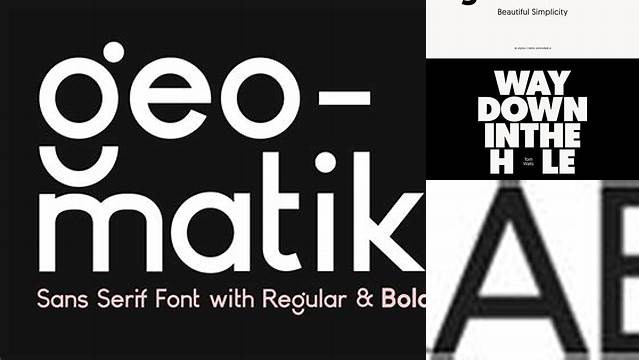
Hey everyone! Today, we're diving headfirst into the awesome world of typography, specifically focusing on the Geomatik Modern Sans Serif Font. This font is a real gem for anyone looking to add a touch of modern elegance to their designs. And the best part? You can snag a free download to start creating immediately! This guide will walk you through everything you need to know about Geomatik, from its characteristics to how you can use it to make your designs pop. So, let's get started, shall we?
H2: Understanding the Allure of Geomatik Sans Serif Font
Geomatik isn't just another font; it's a statement. It's clean, it's crisp, and it's incredibly versatile. This modern sans serif font is perfect for a wide range of design projects. Think of it as your secret weapon for creating visually appealing content. The beauty of Geomatik lies in its simplicity. Its clean lines and uncluttered design make it incredibly readable, which is essential whether you're designing a website, crafting a brochure, or creating social media graphics. The font's elegance also makes it a favorite among designers aiming for a professional, sophisticated look. The allure of Geomatik stems from its ability to blend modern aesthetics with timeless appeal. It's a font that can be used in various contexts, from corporate branding to personal projects, and it always looks fantastic. The characters are well-defined, ensuring that your message is clear and easy to understand. This is crucial when you want your audience to quickly grasp the information you're presenting. Geomatik's versatility also means it's easy to combine with other fonts. You can pair it with a serif font for a classic contrast or with another sans serif for a more contemporary feel. The possibilities are truly endless, and the results are often stunning. This font is more than just a typeface; it's a tool that allows you to express your creativity and enhance the visual impact of your work. The careful design of each character gives it a unique identity, and its understated elegance makes it stand out without being overly flashy. Geomatik is an excellent choice if you want to create a sleek, modern design that is both engaging and functional. This font is a reliable option whether you're a seasoned designer or just starting your design journey. This is your chance to make a lasting impression with its clean lines and balanced proportions.
H3: Exploring the Key Features and Characteristics of Geomatik
Let's get down to the nitty-gritty and explore what makes Geomatik so special. At its core, Geomatik is a modern sans serif font, which means it lacks the small decorative strokes (serifs) found at the ends of some letter strokes. This gives it a clean, minimalist look. The most notable features of Geomatik include its consistent stroke weight, providing a balanced and harmonious appearance. The letterforms are carefully crafted, ensuring excellent legibility even at small sizes. The font features a comprehensive character set, including uppercase and lowercase letters, numbers, punctuation marks, and special characters. This extensive character set allows you to use Geomatik in various design projects without any limitations. Geomatik also offers multiple weights and styles. This allows you to customize the font to match your design needs. You can use a light weight for a subtle touch or a bold weight to make a powerful statement. The variety in styles makes it possible to create visual hierarchy and emphasize specific elements in your design. One of the key characteristics of Geomatik is its versatility. It can be used in various design projects, from websites and print materials to logos and branding. Its clean, modern look makes it suitable for a wide range of applications. The design of Geomatik emphasizes readability, which is crucial for any font. Its clear and distinct letterforms ensure that your text is easy to read, whether on a screen or in print. This also ensures that your message is conveyed effectively without any distractions. Geomatik is designed with modern design trends in mind. Its sleek and contemporary look makes it a great choice for projects that aim to look up-to-date and stylish. The consistent stroke weights provide a uniform look that is both professional and visually appealing. All these features work in harmony to make Geomatik a top choice for designers. This is a font that truly shines in a wide range of creative endeavors. This font is an excellent choice whether you're a designer or just someone who appreciates good typography. It is not just a font; it's a statement of style and sophistication.
H2: Geomatik Font Usage: Best Practices and Design Tips
Using Geomatik effectively means understanding its strengths and how to leverage them in your designs. This modern sans serif font shines when used for headings, subheadings, and short blocks of text. Its clean lines make it perfect for creating a professional and modern look. For optimal readability, use appropriate font sizes. In general, avoid using extremely small sizes, as this may affect the font's readability. Choosing the right font weight is essential. Bold weights are great for making headlines stand out, while regular weights are suitable for body text. Another essential design tip is to pay attention to spacing. Adjusting the letter spacing and line height can significantly impact the overall look of your design. Experiment with different spacing options to find what works best for your project. Pairing Geomatik with complementary fonts can also add interest. Choose a serif font for body text to create a balance of contrast. Consider the context of your design. Geomatik is an excellent choice for websites, brochures, and presentations. When using Geomatik, ensure the design aligns with the brand's identity. Use the font in a way that reflects the brand's personality and values. Always test your design on different devices and screen sizes. This ensures the font looks good across all platforms. Be mindful of the background of your design. Use Geomatik with a background that complements the font. You can also add some unique elements to your design. Doing so can add some character to your design. Experiment with different colors and styles. This allows you to see how the font looks with different designs. Your aim is to keep the font easy to read. Doing so will enhance your audience's overall experience. Following these tips will help you create beautiful and impactful designs with Geomatik. This will boost your creativity, and you can easily craft beautiful designs.
H3: Incorporating Geomatik into Various Design Projects
Geomatik is a versatile font, perfect for various design projects. One of the most common uses is in website design. Its clean and modern look makes it perfect for creating websites that are visually appealing and easy to navigate. You can use Geomatik for headings, subheadings, and body text. In website design, it is crucial to ensure that the font is readable on different devices and screen sizes. Another popular application is in branding and logo design. The modern aesthetic of Geomatik makes it a great choice for creating logos that are both stylish and memorable. You can use the font in various branding materials, such as business cards, letterheads, and social media graphics. Geomatik is also ideal for creating print materials, such as brochures, flyers, and posters. It is an excellent choice for headings, body text, and call-to-action elements. Make sure the font is easy to read and that the design is visually appealing. In the world of digital marketing, Geomatik can be used for creating social media graphics, email newsletters, and online advertisements. Its clean lines and modern look make it perfect for catching the attention of your audience. Remember to use the font consistently across all your marketing materials to create a cohesive brand identity. Geomatik is also a great option for presentations and slideshows. Use it for headings, subheadings, and body text to create visually appealing and easy-to-read slides. Choosing the right font size and weight is important for ensuring readability. When using Geomatik in different design projects, always consider the design's purpose and the target audience. Keep your designs simple and elegant, and let the font's beauty speak for itself. You can experiment with various styles. You may also discover that it's great for many other applications. Be creative and make your design look professional. This font is great for all kinds of projects, from web design to marketing. If you want to stand out, Geomatik is the best option.
H3: Recap of the Benefits and Key Takeaways of Using Geomatik
Let's recap the benefits and key takeaways of using Geomatik. Geomatik is a modern sans serif font known for its clean and modern aesthetic. Its clear, readable letterforms are great for design projects. The font is incredibly versatile and suitable for various design applications. The font is available for free download, making it easily accessible to everyone. Also, the font is compatible with most design software. Its ease of use is another great benefit. It also offers a range of weights and styles. This helps you to customize your designs. Geomatik is great for headings, body text, and branding. The font's versatility makes it great for all design applications. The font’s simplicity ensures that your designs look modern and clean. The font is well-suited for both print and digital projects. Therefore, it is ideal for all purposes. Use Geomatik to convey professionalism and modernity. Its clean lines and balanced proportions make it a great choice. Remember that Geomatik is the go-to font. Always experiment with different styles. Always test your design to make it shine on all platforms. Follow the licensing terms. Follow the guidelines to prevent any legal issues. You can make great designs with a little bit of creativity.